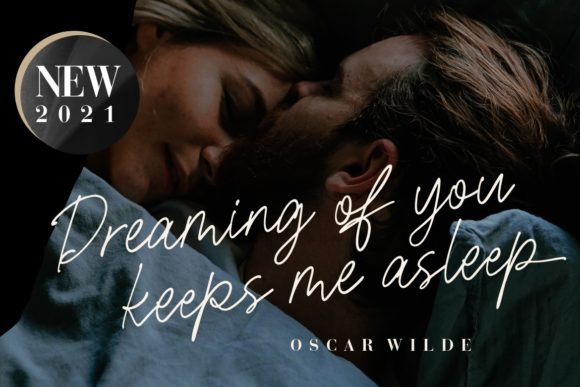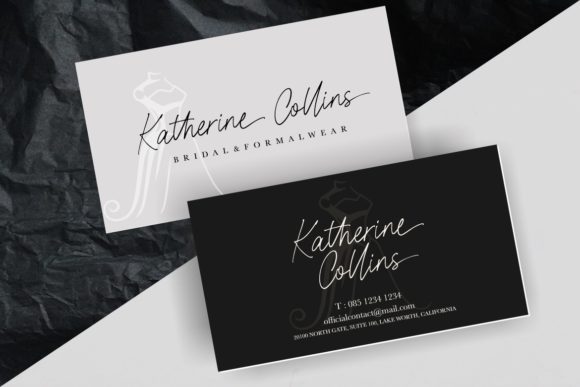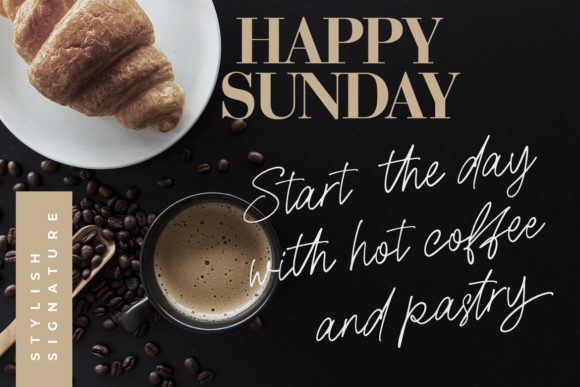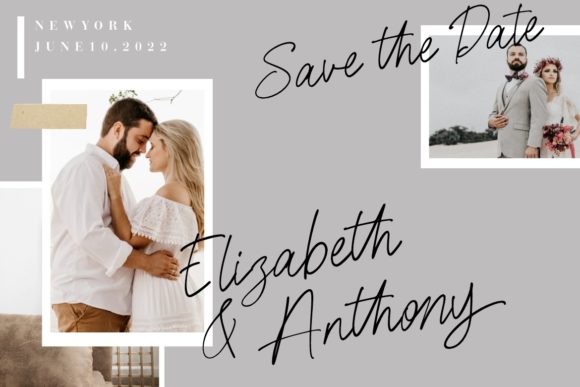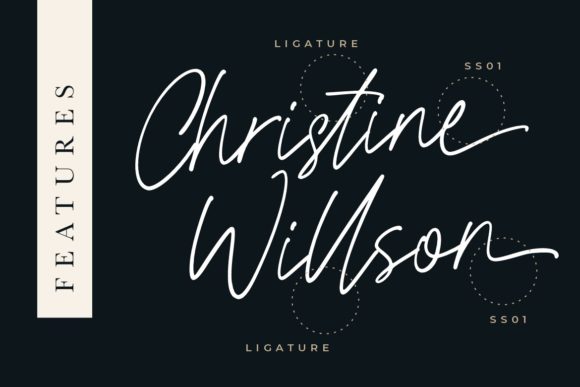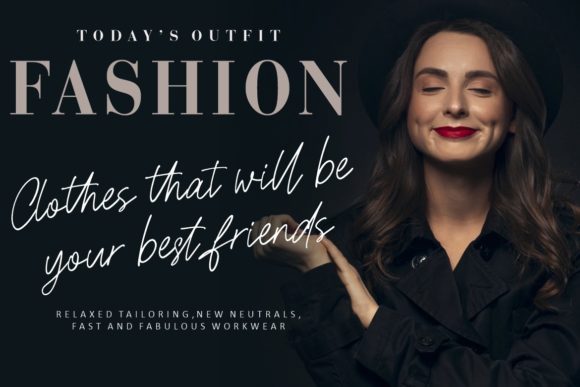
Introduction to Gaston & Jacklyn Font
Gaston & Jacklyn is a stylish signature script font that looks very elegant and classy.
This thin and delicate font looks gorgeous on a variety of design ideas Gaston & Jacklyn is PUA encoded which means you can access all of the glyphs and swashes with ease.
Key Features of Gaston & Jacklyn Font
Why Choose Gaston & Jacklyn Font?